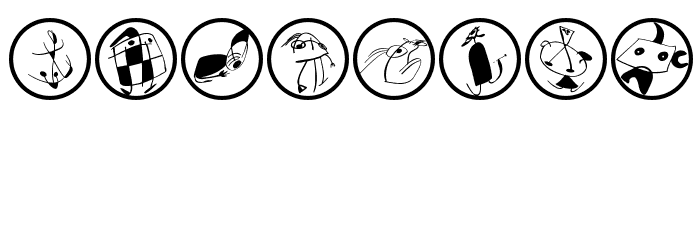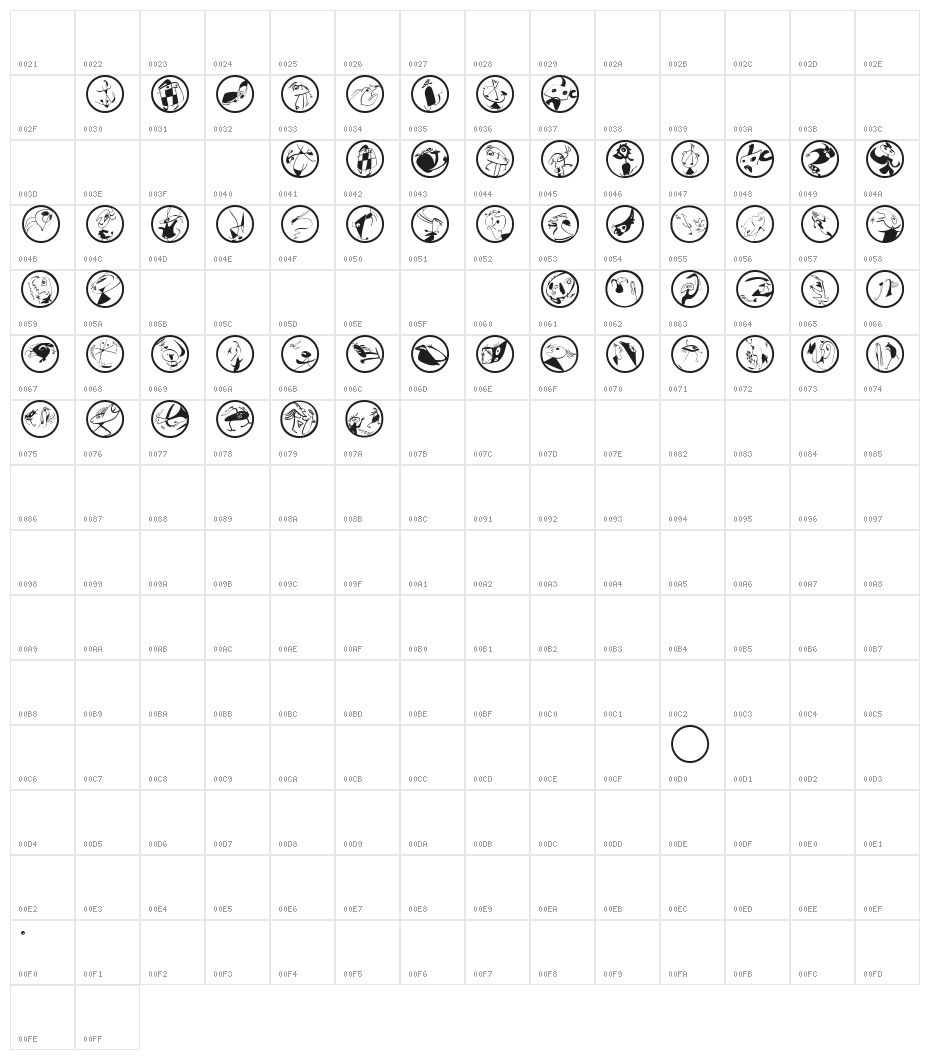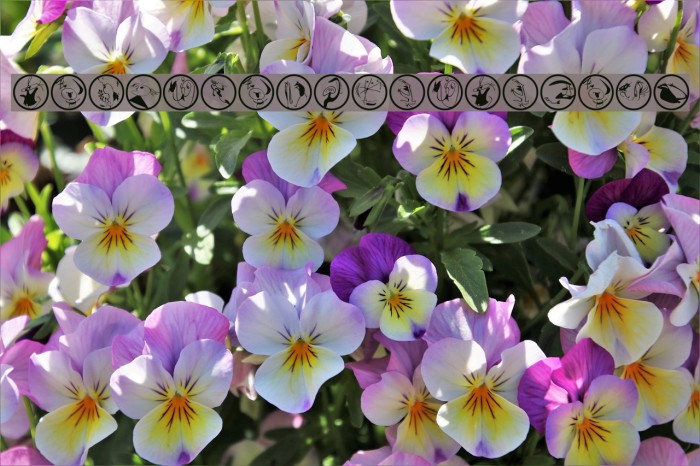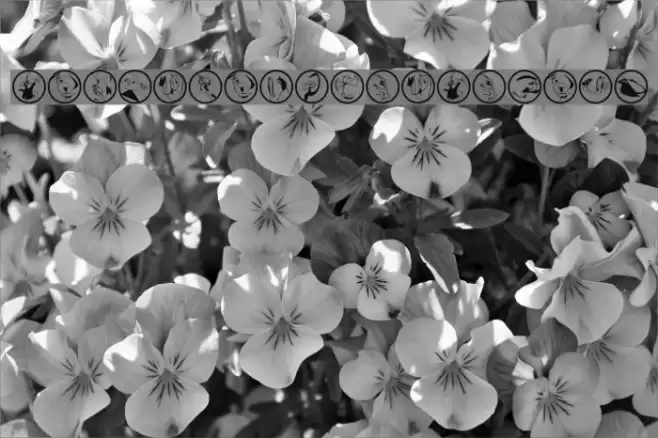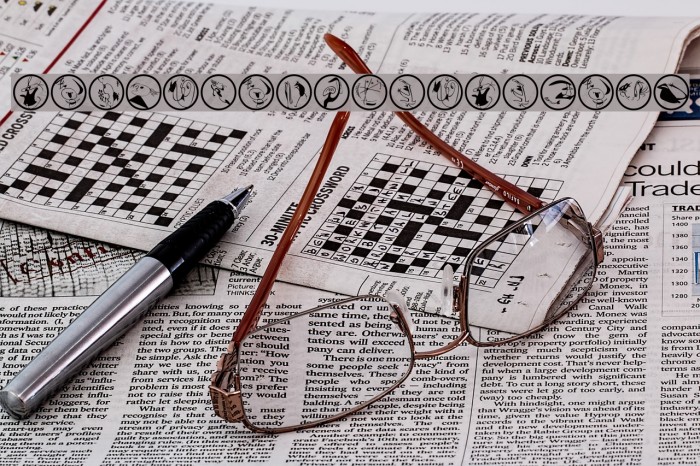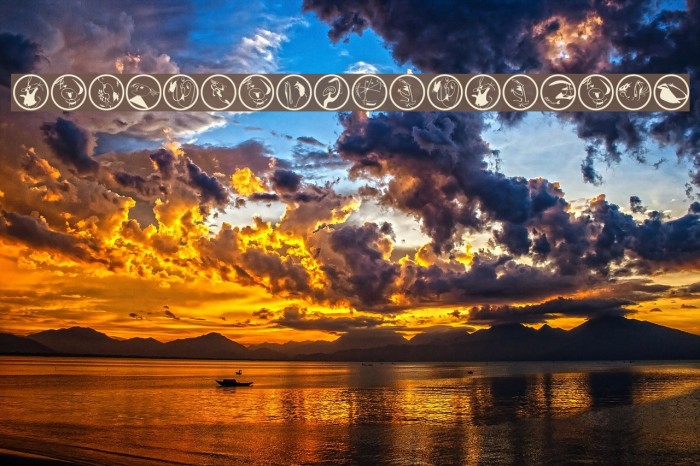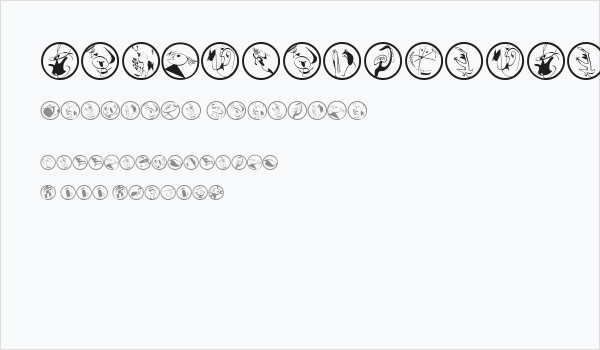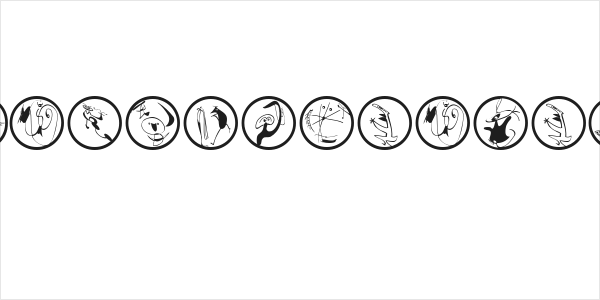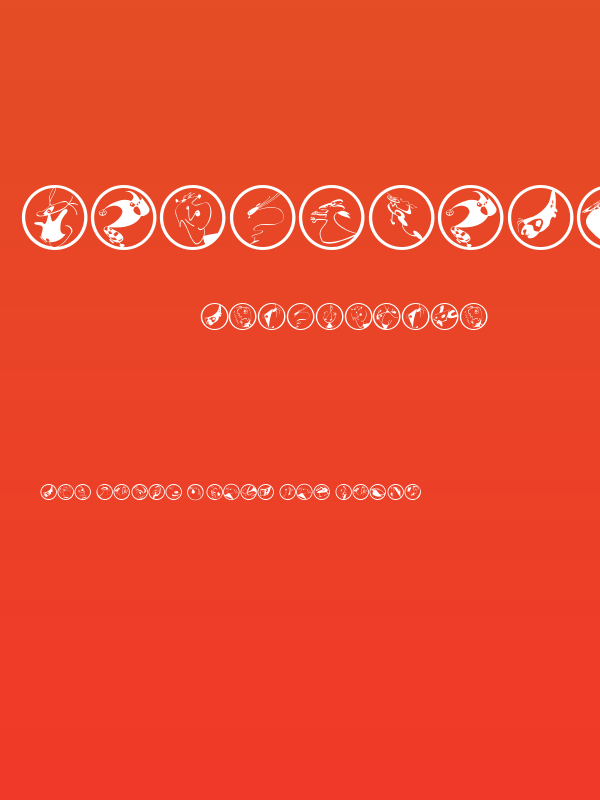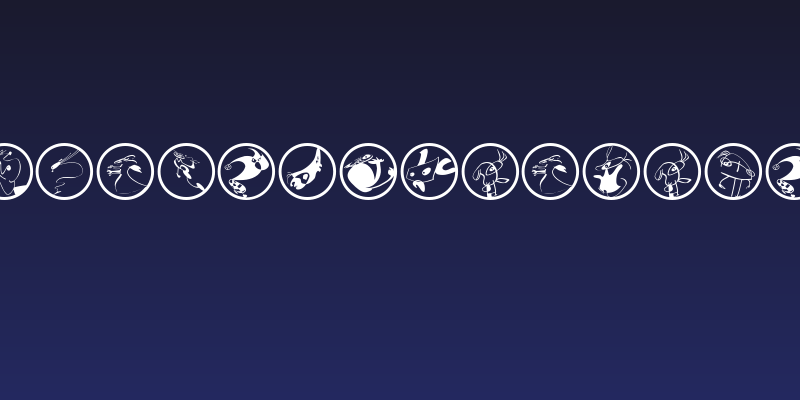
MirosWitchesMedium Font
MirosWitchesMedium Description
A highly decorative and whimsical font featuring abstract, hand-drawn illustrations within circular frames for each character, evoking a playful and surreal artistic style reminiscent of mid-century modern art.
Overall StyleDecorative, Artistic, Whimsical
Use CaseLogos, Posters, Art projects, Headlines
Proposed ProjectsChildrenÒ€ℒs books, creative posters, art event branding, album covers, playful packaging.